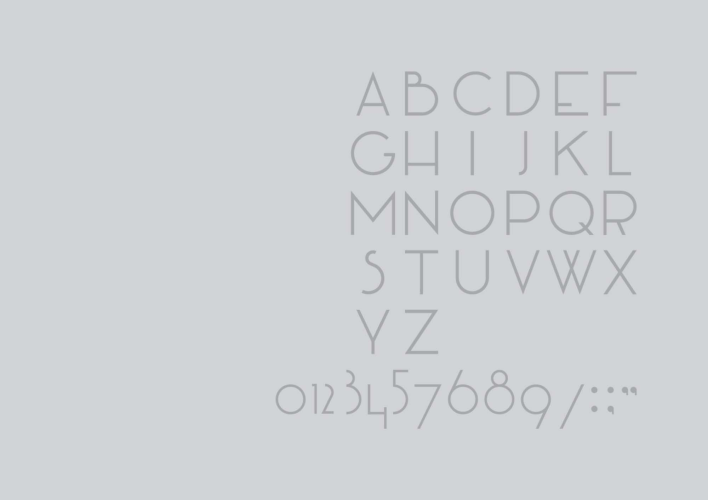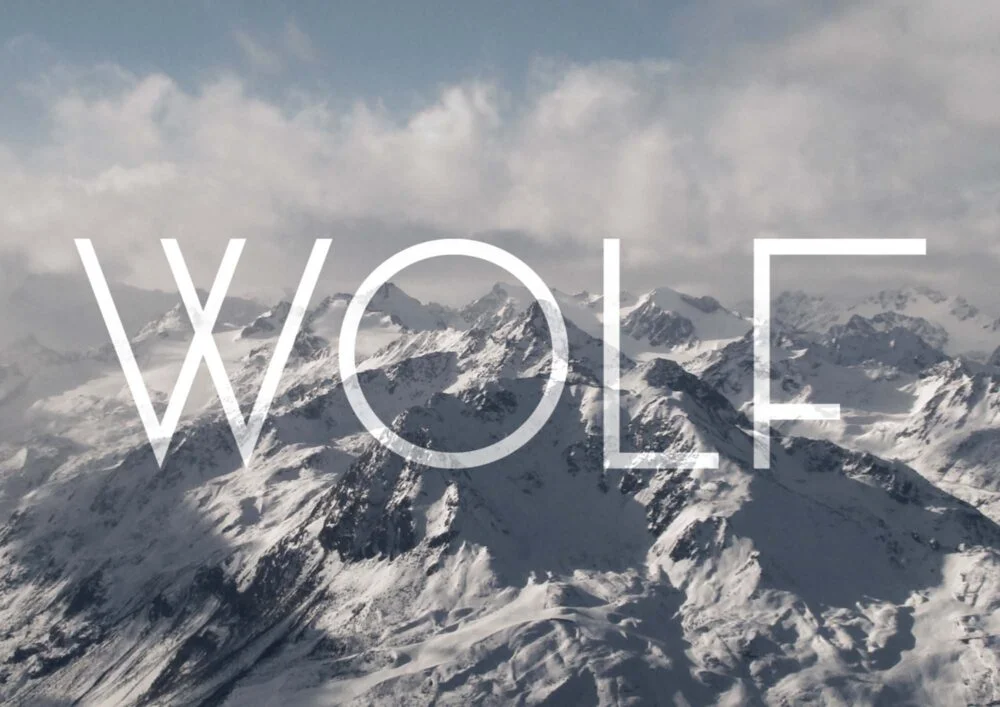
Manifesto Font
Manifesto Font is a written statement to be shared with the public, a declaration of something that goes far beyond the immediate words put in front of us and that leaves its marks on its readers, even after the text has ended. And because manifestos are so effective.
Manifesto is a brand new font inspired by the Italian rationalist movement. What do you want your font to say? Simple yet confident, minimalist yet unforgettable, with characters that give precision a whole new meaning? Introduce simple designs with plenty to say by using the font that allow its uppercase letters to shine not individually but within a combination that makes its effects long-lasting and that can be used for branding presentations, packaging designs, posters, and many other options since Manifesto come with a commercial license.